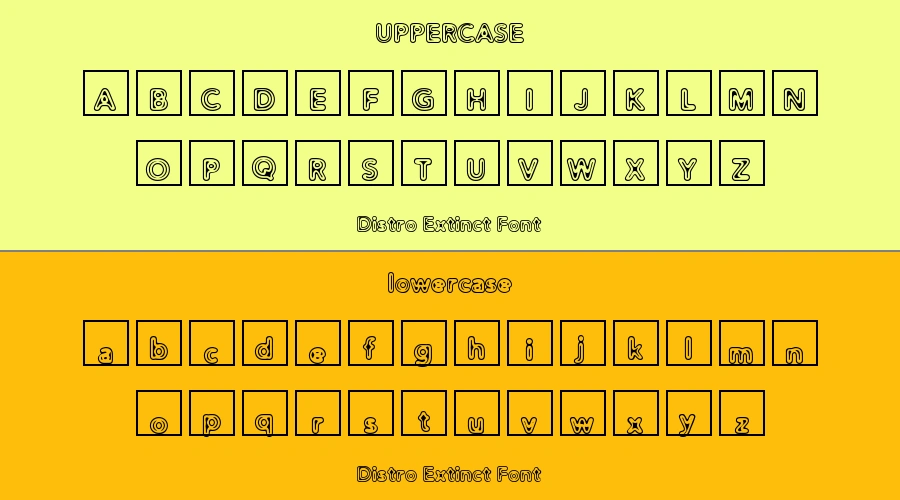
About Distro Extinct Font
Distro Extinct Font embodies typographic excellence through its masterful combination of modular forms and textural richness. Created for advertising headers, this typeface delivers exceptional refinement and brand alignment across all applications. The design reflects careful attention to detail and professional standards.
Advanced capabilities include distinctive decorative alternates and versatile subscript/superscript, giving designers creative control. When used in exhibition materials, Distro Extinct Font exhibits remarkable multi-language support. The harmonious balance between aperture size and scholarly tradition sets this typeface apart.